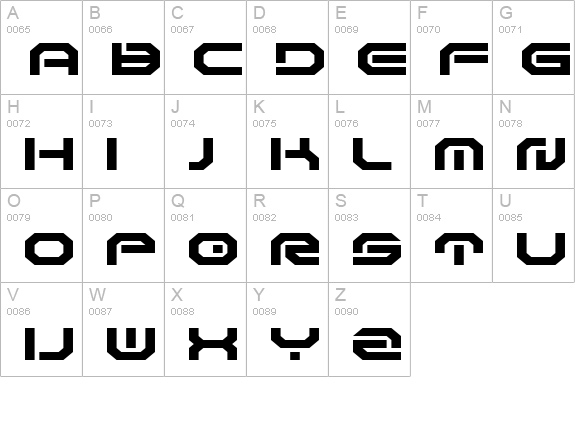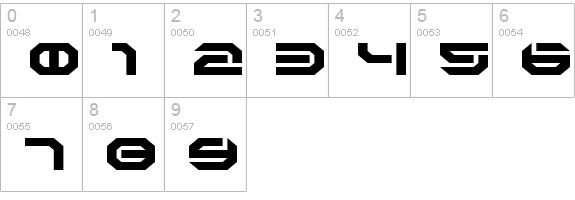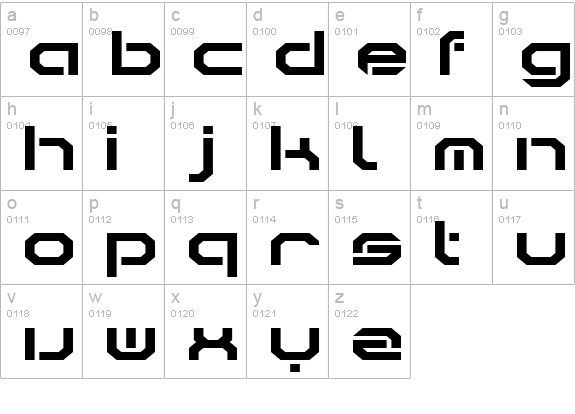
BDDoomedSquareup Font Details
BDDoomedSquareup font is a bold and striking display typeface that commands attention with its sharp edges and squared-off shapes. This unique font is perfect for creating impactful headlines, posters, and branding materials that stand out from the crowd. The geometric design of BDDoomedSquareup gives it a modern and edgy look, making it a great choice for projects that require a touch of boldness and personality. Best of all, BDDoomedSquareup is available for free download at FontsMarket.com. This means you can easily access this eye-catching font and start using it in your designs without any cost. Whether you're a designer looking to add a modern twist to your projects or a business owner wanting to make a statement with your branding, BDDoomedSquareup is a versatile font that will help you achieve your creative goals. Download it today and let your designs shine with this striking typeface.